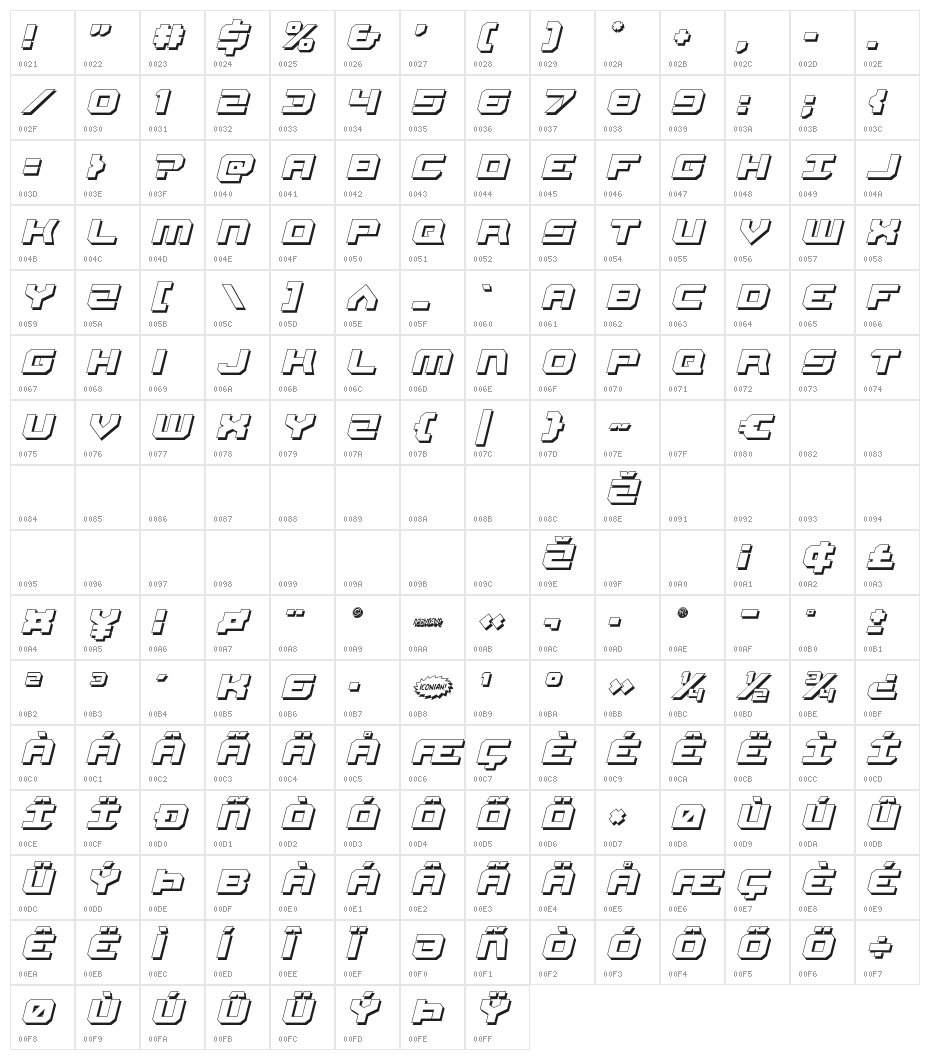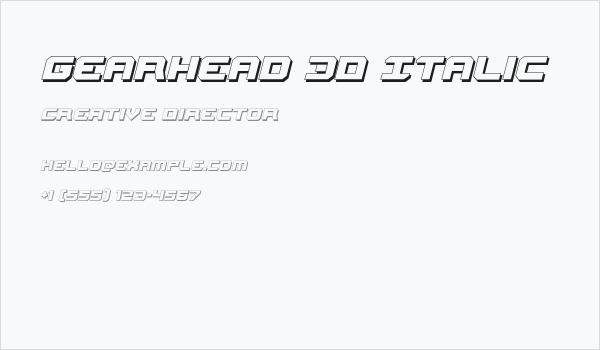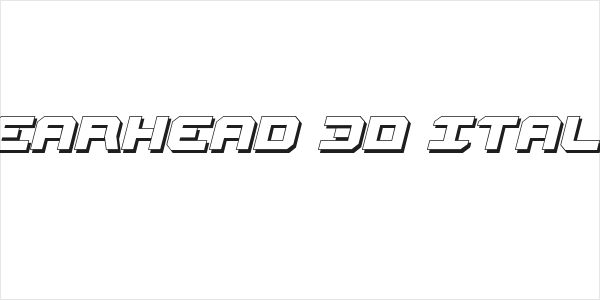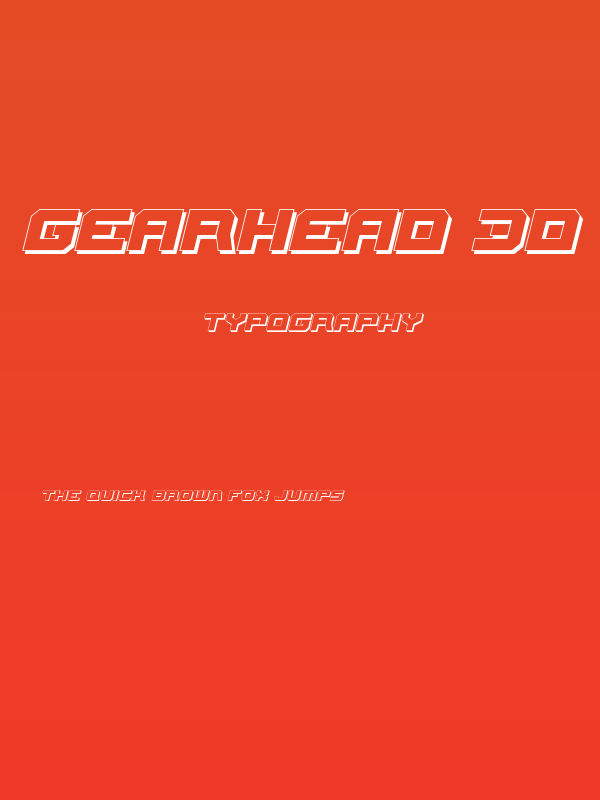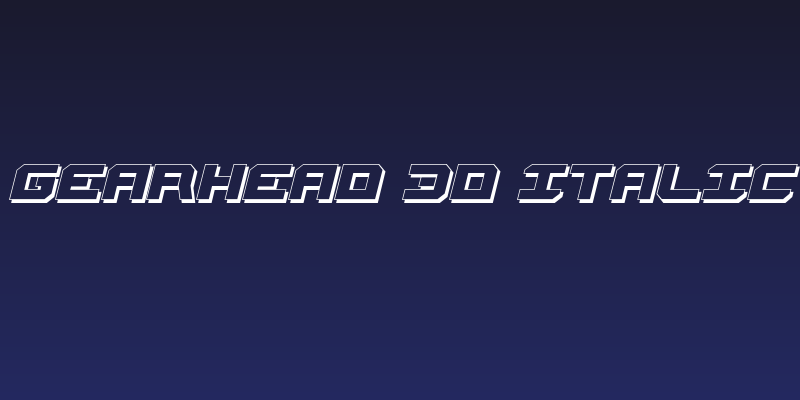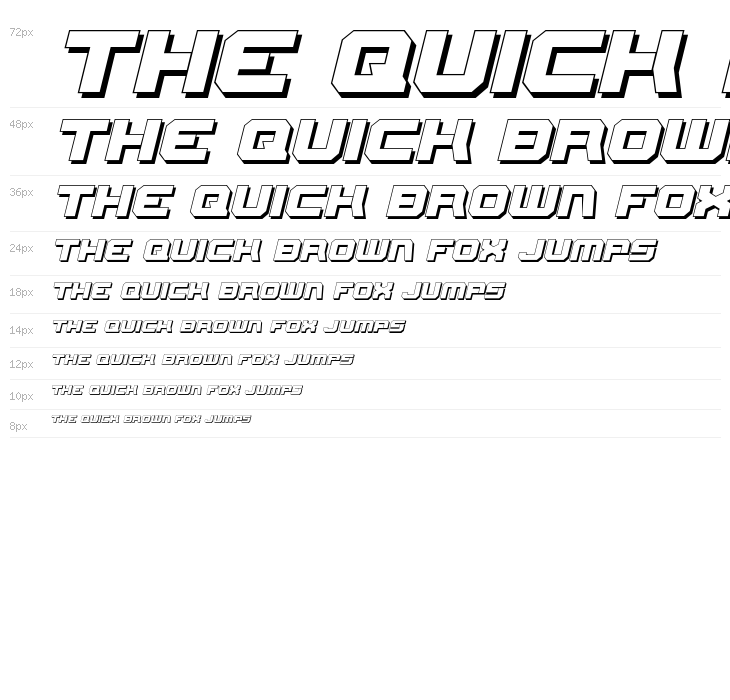
Gearhead 3D Italic Font
Gearhead 3D Italic Description
This font features a bold, three-dimensional design with a futuristic and mechanical aesthetic. The characters are blocky and angular, with a distinct italic slant that adds a sense of motion and dynamism. The 3D effect is achieved through a clever use of shading and outlines, giving each letter a sense of depth and solidity. The uppercase and lowercase letters maintain a consistent style, while the numerals and special characters are designed to match the overall theme. This font is ideal for projects that require a strong, impactful visual presence.
| Overall Style | Futuristic, Mechanical |
| Proposed Projects | Perfect for video game titles, tech-themed posters, automotive branding, and sci-fi book covers. |